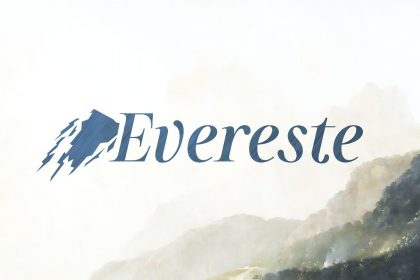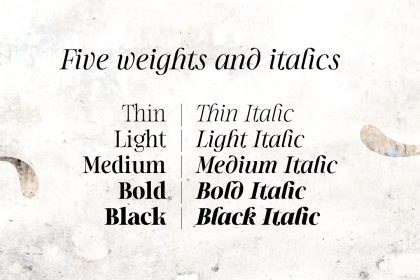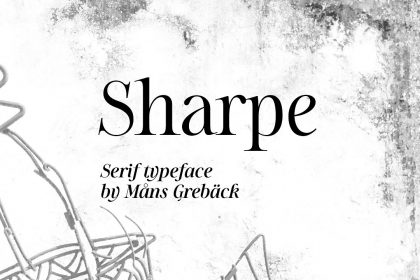
Sharpe Font Family
Sharpe Font Family – Free Demo
Hello there:) Sharpe is a stylish serif typeface family. The type has been drawn by Mans Greback during 2018 and 2019. It is clear, sharp and has brave, lively letter forms but with a conservative backbone. The five font weights balances beautifully in contrast to each other, and each weight has an italic equivalent, totaling in ten styles from Thin to Black. Each style contains numerals, symbols, punctuation, ligatures and support for a wide range of languages.
This font is perfect for quotes, shirts, mugs, headings, logos, invitations and more!